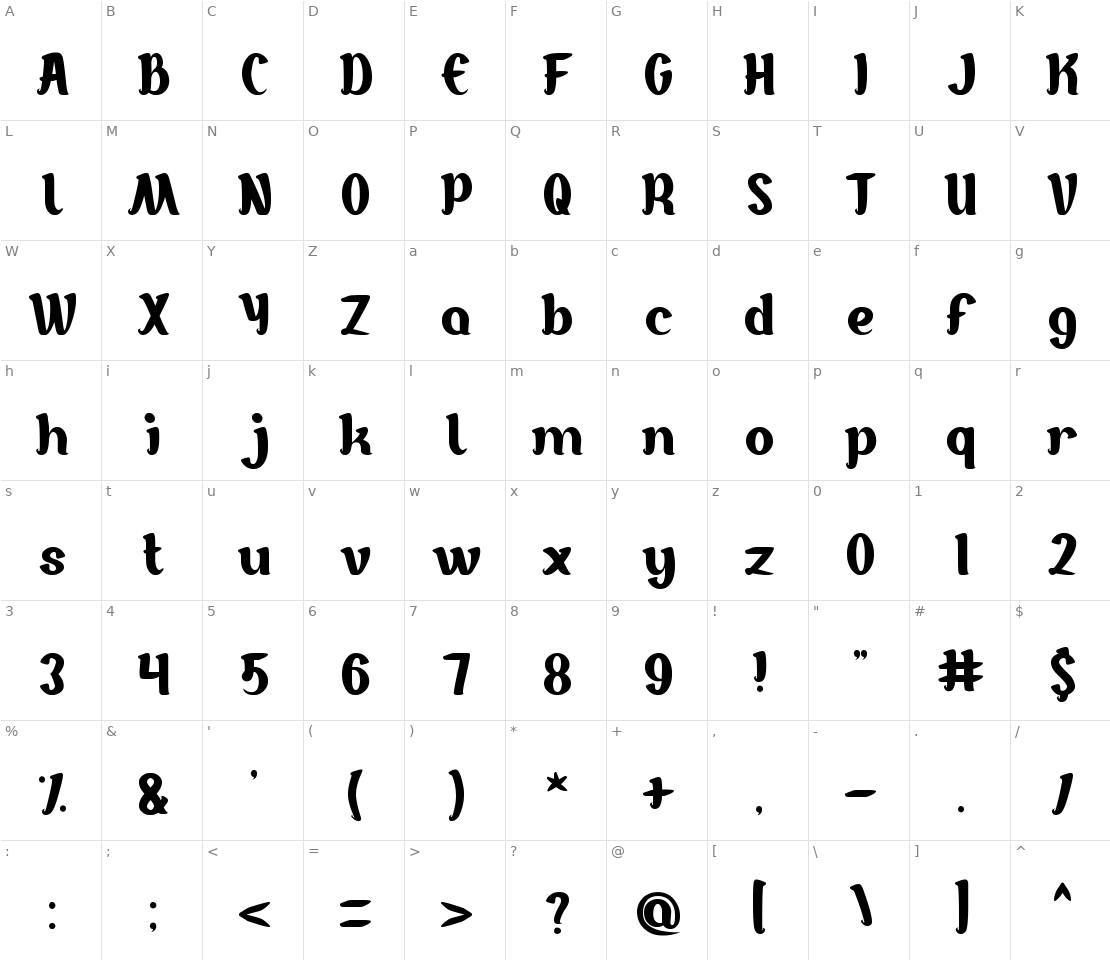
Goddess of Fortune
Goddess of Fortune is a heavy, curvy display face from weknow with decorative letterforms that balance darkness and whimsy in an unusual way. The bold strokes carry a lush, almost theatrical weight, while the curves keep things from feeling too severe. Best at large sizes for headlines, posters, or branding that needs to feel dramatic and a little mysterious.